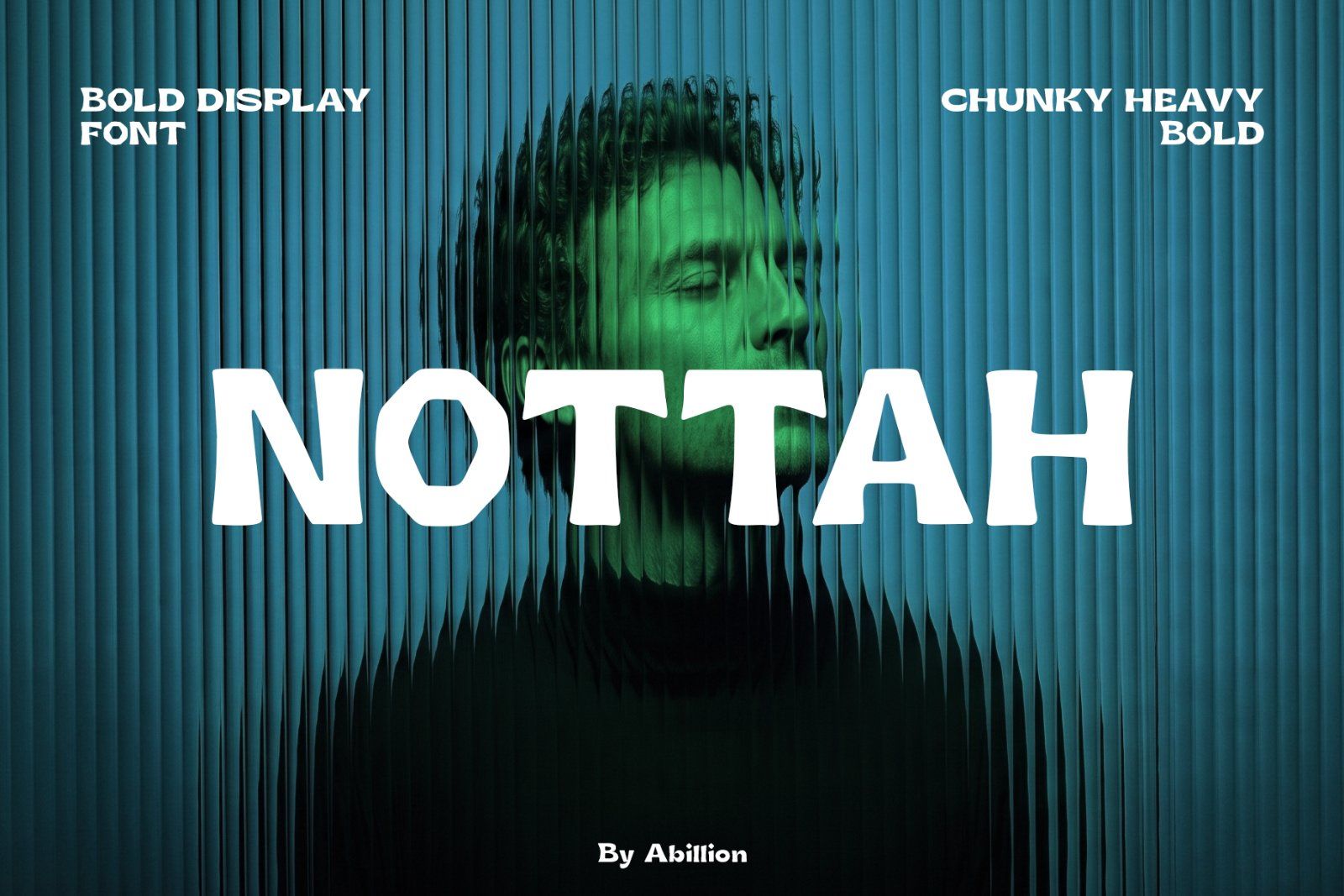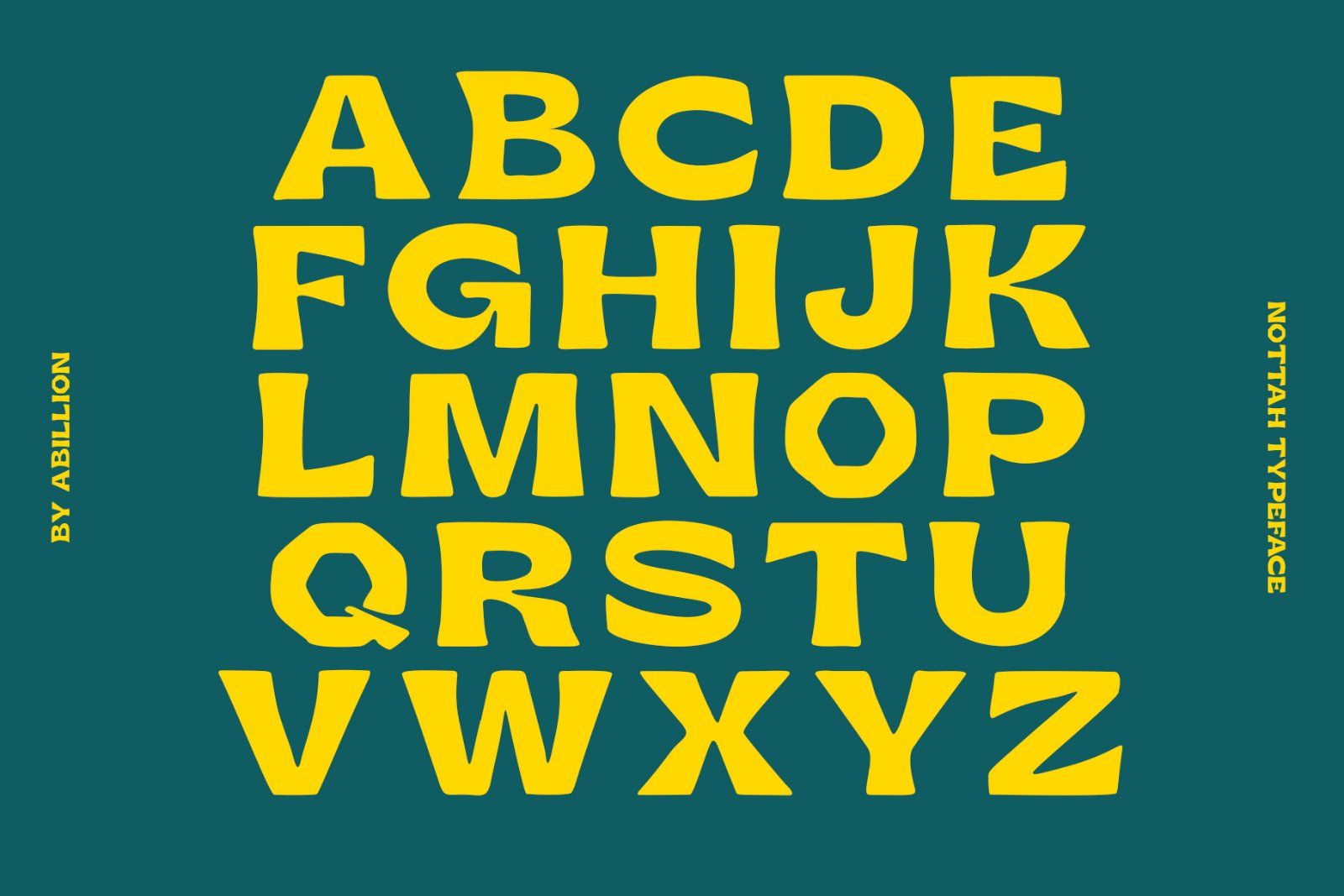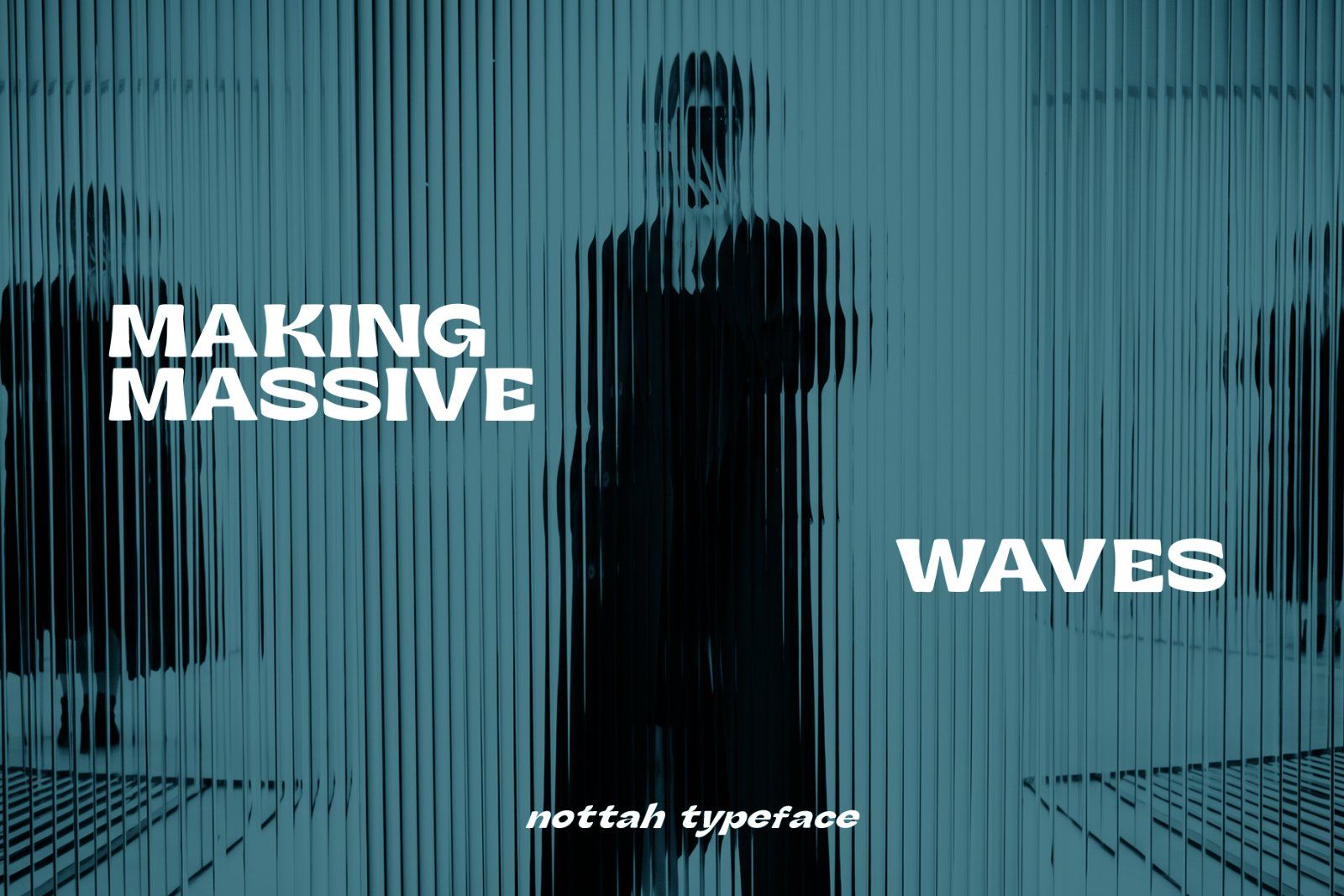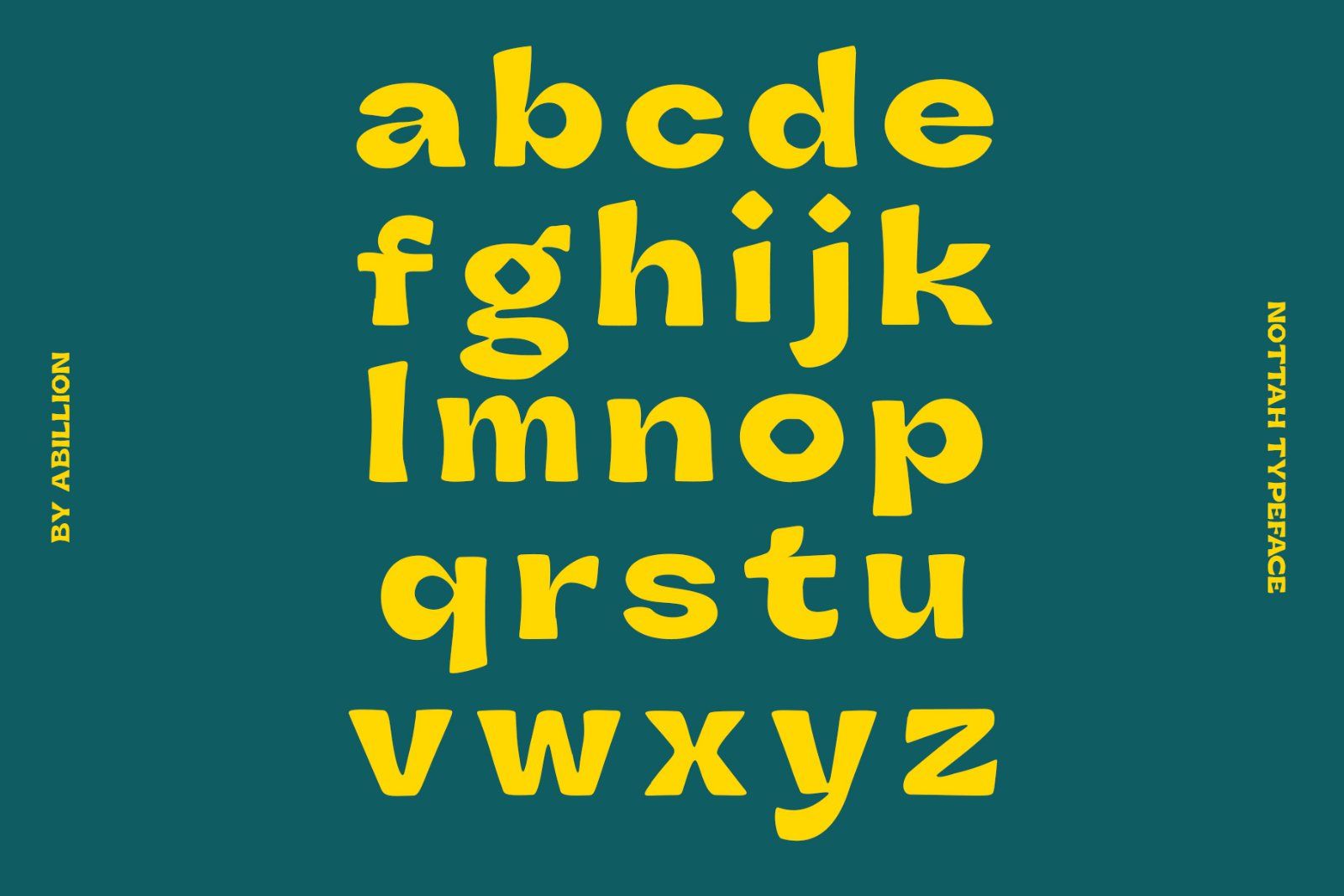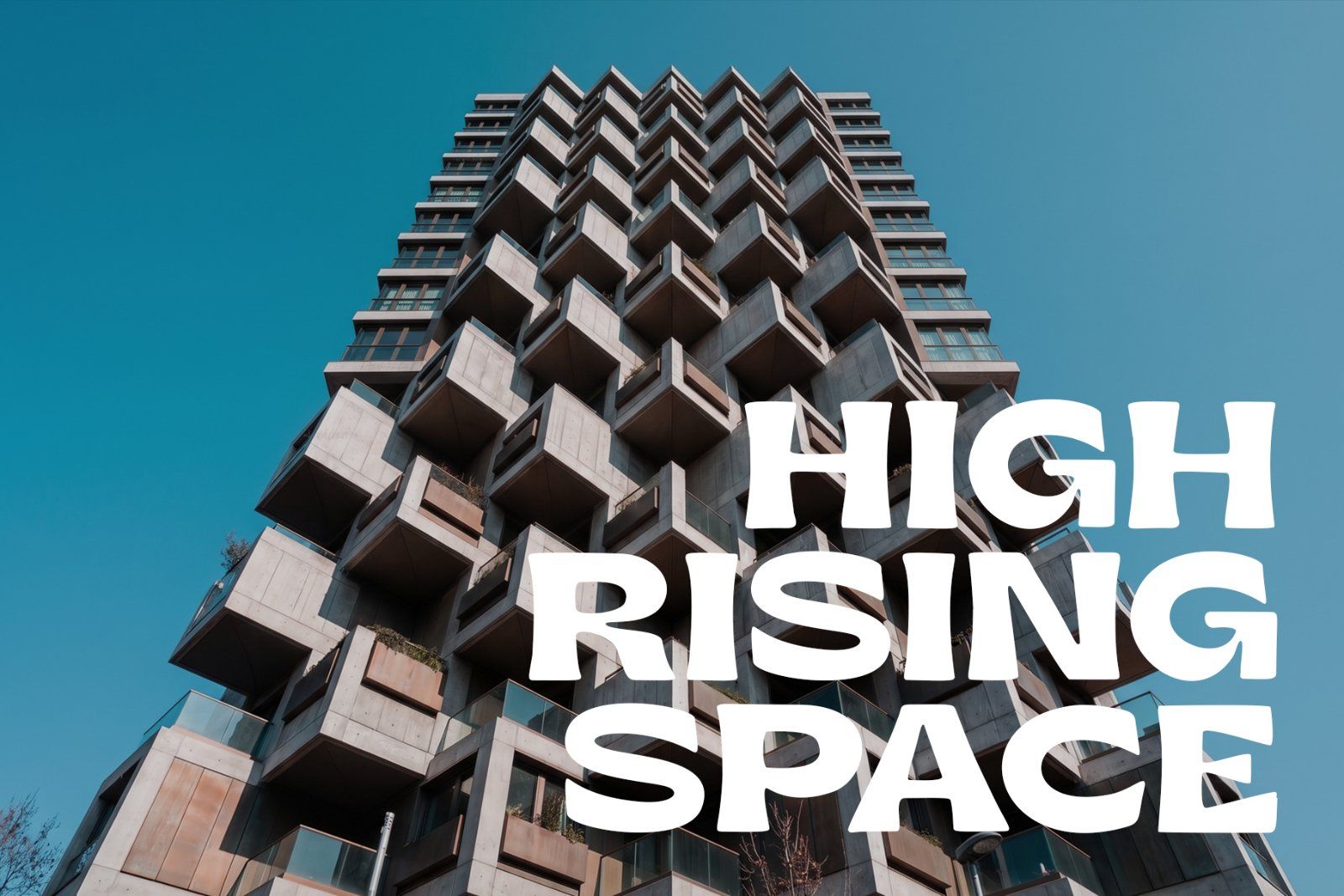
NOTTAH | Bold Display Sans Serif Font
Overview Bring a warm, playful, and handcrafted energy to your designs with NOTTAH, a chunky display font defined by bold organic shapes and subtle geometric character. Featuring soft edges, expressive letterforms, and a tactile feel, NOTTAH delivers a friendly yet high-impact visual style built to grab attention.
Why It Stands Out
• Bold Organic Aesthetic: Unique handcrafted stems paired with subtle geometric twists (such as the distinctive octagonal inner counter of the 'O').
• Friendly & Approachable: Softened corners give headlines a welcoming, hand-cut feel without sacrificing visual weight.
• High-Impact Display Power: Built for maximum readability and personality in logo design, packaging, and title cards.
Ideal Applications
• Food & beverage packaging (artisan coffee, juices, snacks, craft beers)
• Kids, toy, and lifestyle product branding
• Sticker pack & streetwear merchandise design
• Bold social media graphics, posters, and quote cards
• Book covers, creative branding & apparel